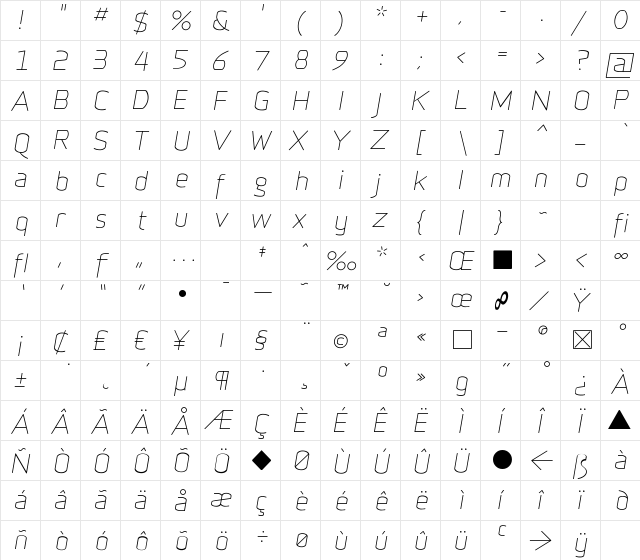
Infinity-T-LI Regular
Design Context for Infinity-T-LI Typeface
Infinity-T-LI is a composed and adaptable typeface that performs quietly and consistently across a wide range of design contexts.